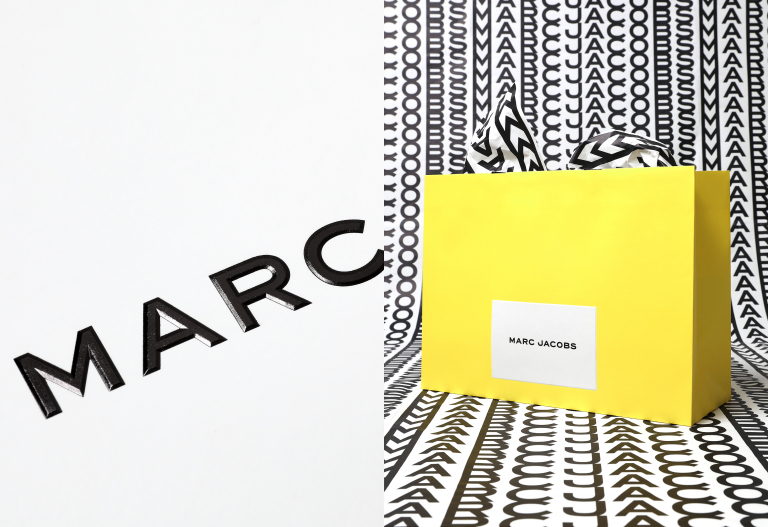
Marc Jacobs Font . Archive of freely downloadable fonts. The space between the letters is wider, while the. (already suggested here) all times are cest. The type featured on the marc jacobs logo looks very much like the engravers gothic font. The logo marc jacobs uses the engravers gothic bt font. The time is now 21:32. Browse by alphabetical listing, by style, by author or by popularity. The project maintains the familiar engravers gothic typeface, a sign of modern urbanity and discernment in luxury fashion. It has been slightly customized. Click here to download marc jacobs logo font. Archive of freely downloadable fonts. Unleash your design potential today! Discover a world of captivating typography for your creative projects. Triboro redesigns the marc jacobs logo with a dynamic typographic pattern and a bright yellow framing device. Browse by alphabetical listing, by style, by author or by popularity.
The logo marc jacobs uses the engravers gothic bt font. The time is now 21:32. Explore marc jacobs fonts at myfonts. The space between the letters is wider, while the. Archive of freely downloadable fonts. Copyright (c) 2010 by castcraft software, inc. Click here to download marc jacobs logo font. Archive of freely downloadable fonts. Unleash your design potential today! The type featured on the marc jacobs logo looks very much like the engravers gothic font.
Marc Jacobs Font Click here to download marc jacobs logo font. It has been slightly customized. Browse by alphabetical listing, by style, by author or by popularity. The space between the letters is wider, while the. The project maintains the familiar engravers gothic typeface, a sign of modern urbanity and discernment in luxury fashion. Browse by alphabetical listing, by style, by author or by popularity. The time is now 21:32. The logo marc jacobs uses the engravers gothic bt font. Explore marc jacobs fonts at myfonts. Click here to download marc jacobs logo font. (already suggested here) all times are cest. What font does marc jacobs use? Triboro redesigns the marc jacobs logo with a dynamic typographic pattern and a bright yellow framing device. The type featured on the marc jacobs logo looks very much like the engravers gothic font. Unleash your design potential today! Archive of freely downloadable fonts.
🌷 Marc jacobs font free. Marc Jacobs (Regular). 20221102 Marc Jacobs Font Triboro redesigns the marc jacobs logo with a dynamic typographic pattern and a bright yellow framing device. Unleash your design potential today! Archive of freely downloadable fonts. Copyright (c) 2010 by castcraft software, inc. Browse by alphabetical listing, by style, by author or by popularity. Archive of freely downloadable fonts. What font does marc jacobs use? Discover a world of. Marc Jacobs Font.
Marc Jacobs Logo Font Marc Jacobs Font The space between the letters is wider, while the. Archive of freely downloadable fonts. Triboro redesigns the marc jacobs logo with a dynamic typographic pattern and a bright yellow framing device. (already suggested here) all times are cest. Explore marc jacobs fonts at myfonts. Copyright (c) 2010 by castcraft software, inc. Unleash your design potential today! Browse by alphabetical listing,. Marc Jacobs Font.
Marc Jacobs Logo Font Marc Jacobs Font Discover a world of captivating typography for your creative projects. Browse by alphabetical listing, by style, by author or by popularity. Unleash your design potential today! Browse by alphabetical listing, by style, by author or by popularity. (already suggested here) all times are cest. What font does marc jacobs use? It has been slightly customized. The logo marc jacobs uses. Marc Jacobs Font.
Marc By Marc Jacobs Faded Font Tshirt in Brown Multi in Brown for Men Marc Jacobs Font Unleash your design potential today! The logo marc jacobs uses the engravers gothic bt font. The type featured on the marc jacobs logo looks very much like the engravers gothic font. Browse by alphabetical listing, by style, by author or by popularity. Discover a world of captivating typography for your creative projects. The time is now 21:32. Triboro redesigns the. Marc Jacobs Font.